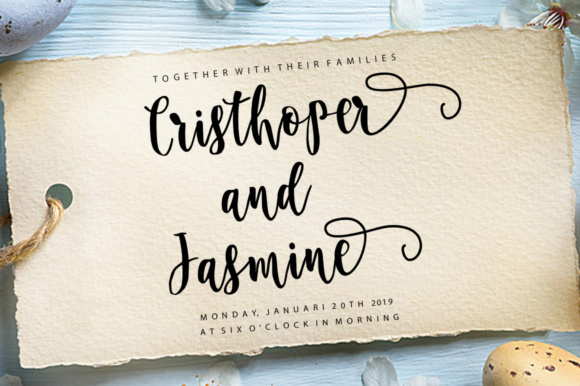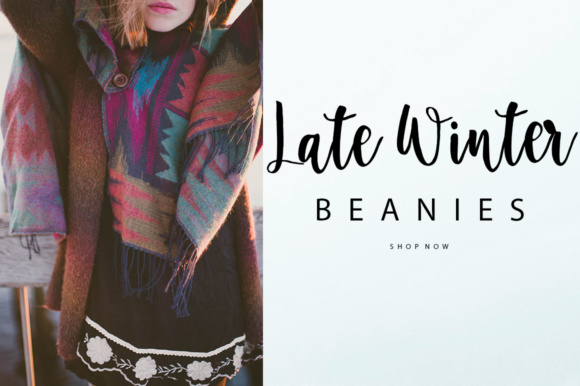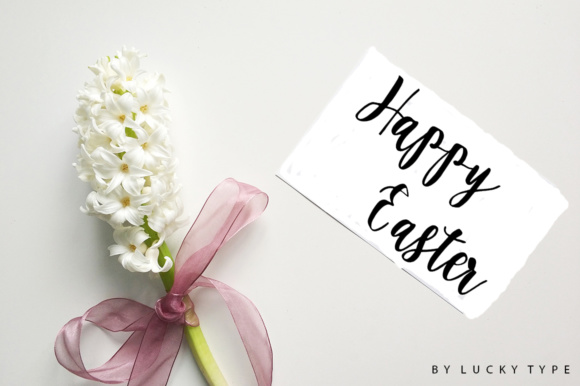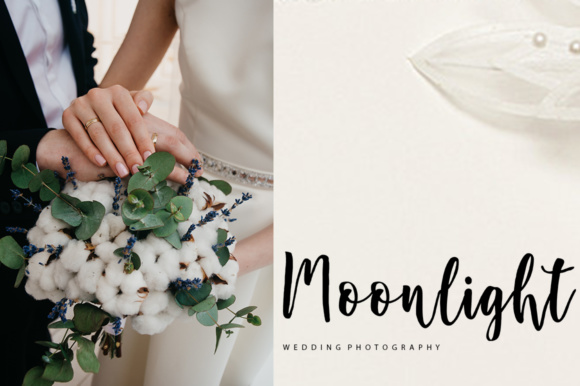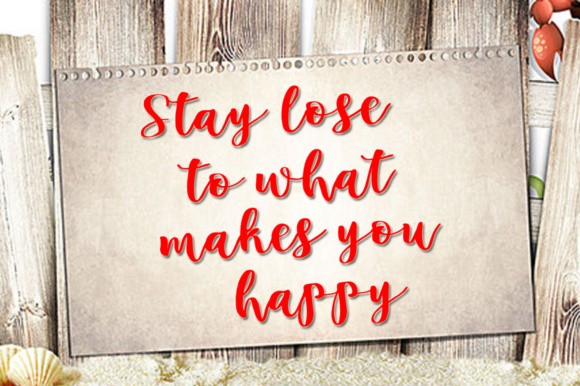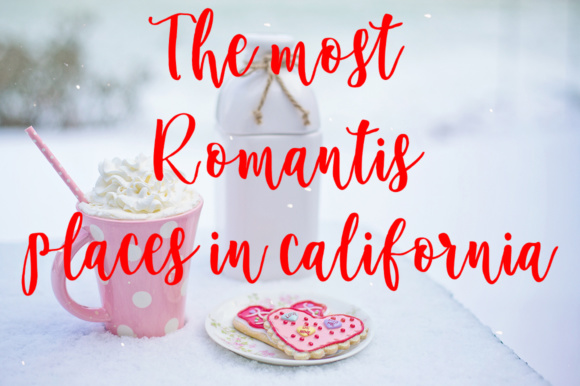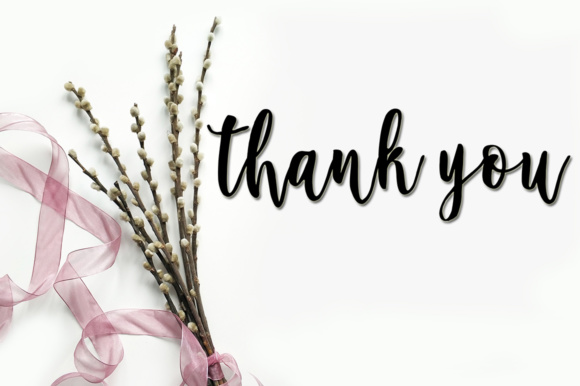
Duttane Script Font
About Duttane Script Font
Duttane Script is a new modern script font with an irregular baseline.
It’s trendy and feminine, which makes it great for invites and many other different types of design.